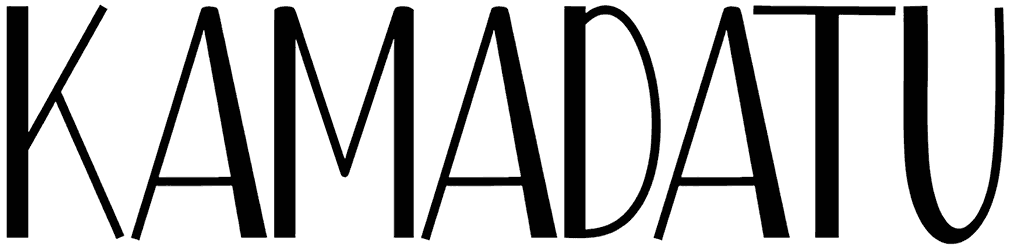
Kamadatu Font
Kamadatu is an incredibly versatile condensed font that has a plethora of applications ranging from movie posters, video game banners, e-books, and logos, to flyers.
This all-caps typeface has an artistic contrast that captivates the attention of the audience and helps your graphic content stand out alongside hundreds of other high-end designs. Last but not least, the characters of this fancy font carry a sense of professionalism, friendliness, softness, and delicacy.